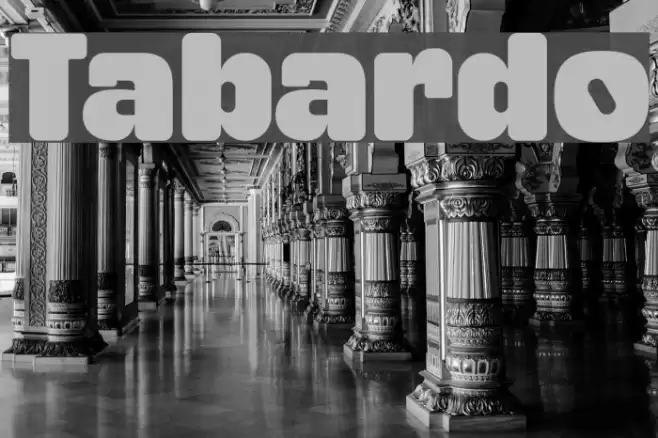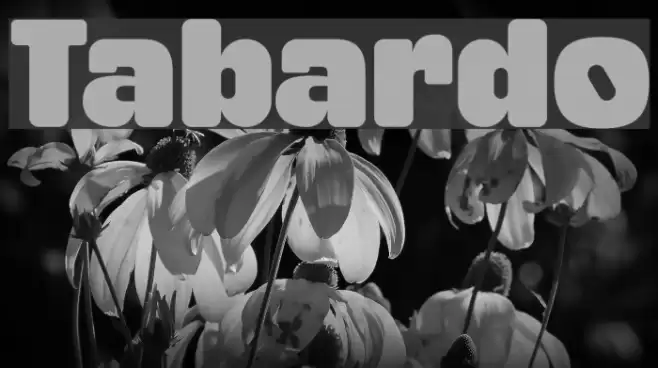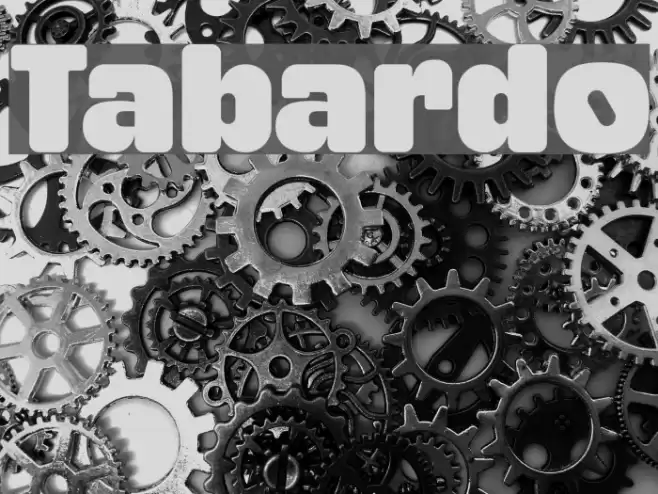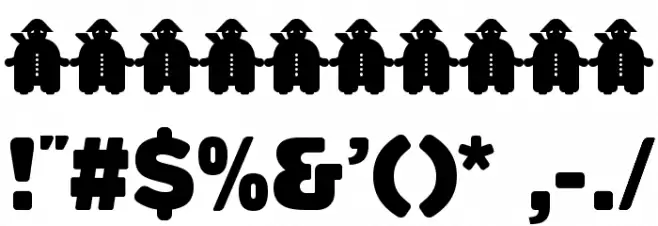
Tabardo Font
Tabardo Description
This font is a bold and playful typeface with a strong presence. The characters are rounded and thick, giving it a friendly and approachable look. The uppercase and lowercase letters maintain a consistent weight, contributing to its cohesive appearance. The special characters and numbers follow the same design principles, ensuring uniformity across all glyphs. Its boldness makes it ideal for attention-grabbing headlines or logos. The font's unique style is further enhanced by its wide character spacing, which adds to its readability and impact.
A bold, playful typeface with rounded, thick characters and wide spacing from Decorative fonts.
- Proposed Projects: Ideal for children's books, playful branding, posters, and eye-catching headlines.
- Character Spacing: Wide
- Overall Style: Playful